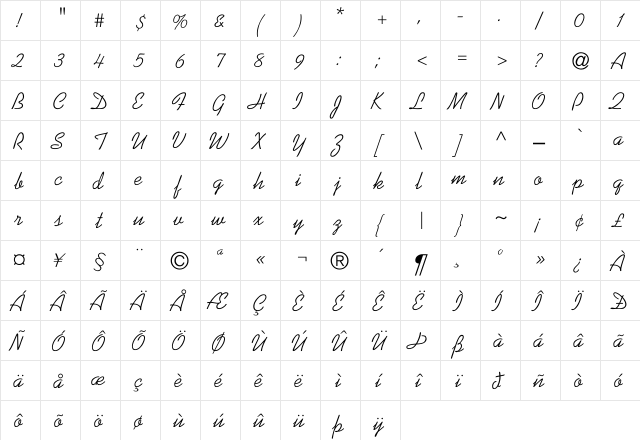
Alako Regular
Design Context for Alako Typeface
Alako is a composed and adaptable typeface that performs quietly and consistently across a wide range of design contexts.